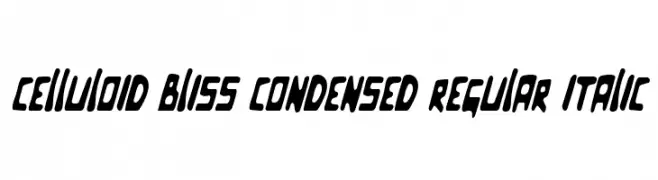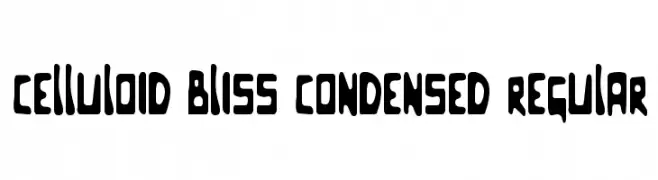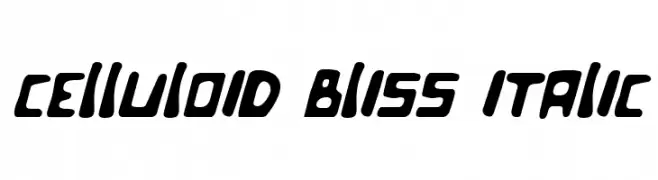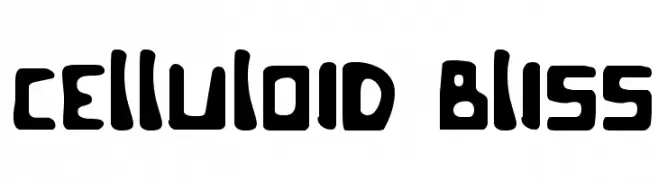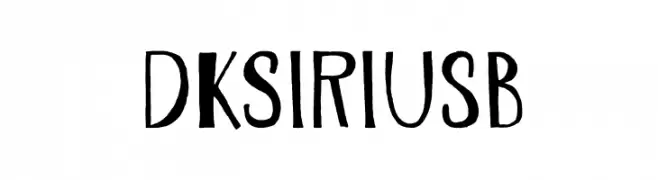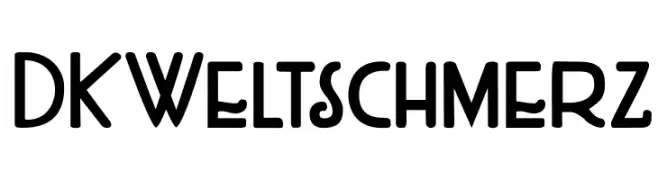
• QuidProQuo
A dynamic, cursive script font with fluid, interconnected strokes.
• DKCarteBlanche
A whimsical, hand-drawn font with decorative swirls and textured hatching.
• Celluloid Bliss Italic
A bold, italicized font with a playful, rounded style.
• Celluloid Bliss
A bold, playful font with a retro vibe and rounded, thick characters.
• Celluloid Bliss Condensed Regular
A bold, playful, and condensed font with rounded, irregular shapes.
• Celluloid Bliss Condensed Regular Italic
A bold, condensed, and italic font with a modern and playful style.
• DKAuRevoir
A lively, expressive handwritten font with dynamic strokes.
• Gunfjaun Runic
A runic-inspired font with angular, geometric shapes and a bold, uniform appearance.
• DKSiriusB
A hand-drawn, playful font with irregular strokes and a whimsical character.
• DKWeltschmerz
A playful and whimsical font with unique decorative elements.